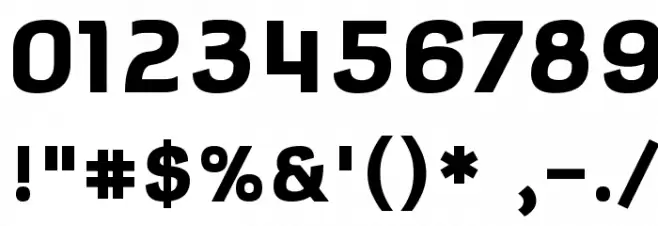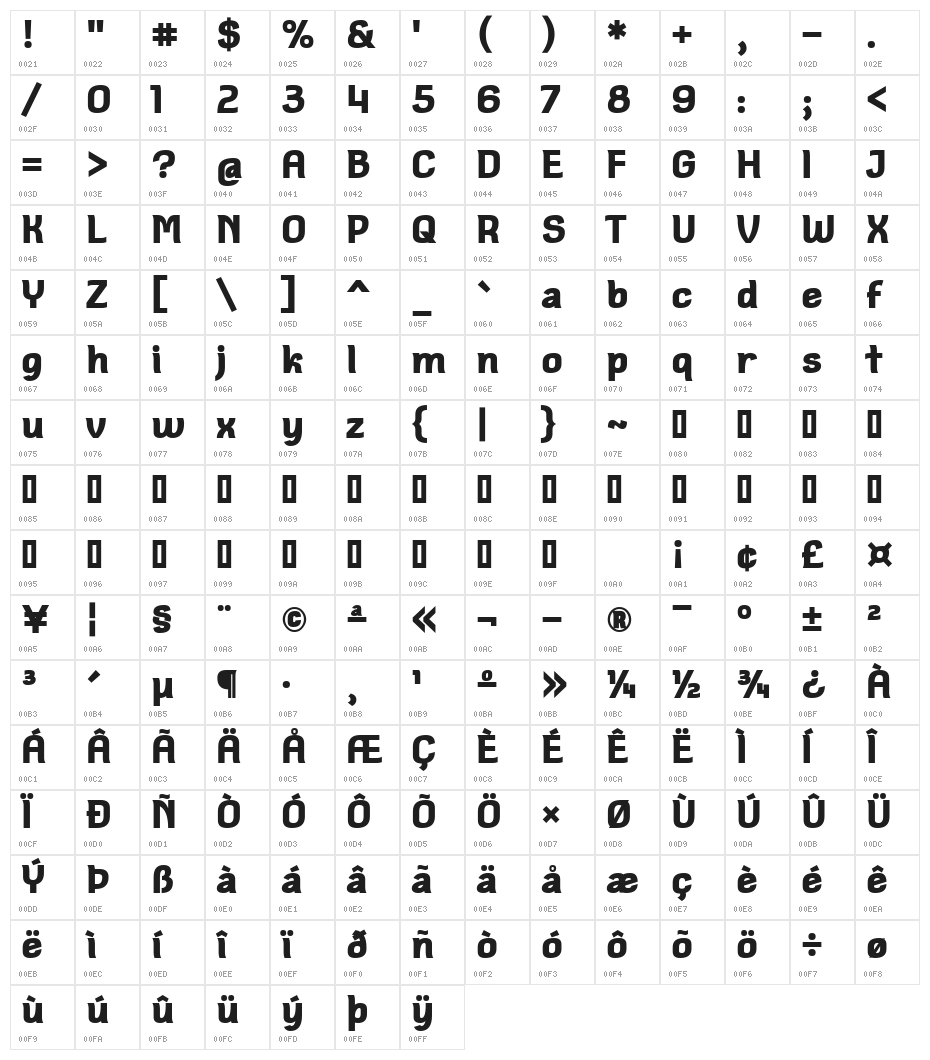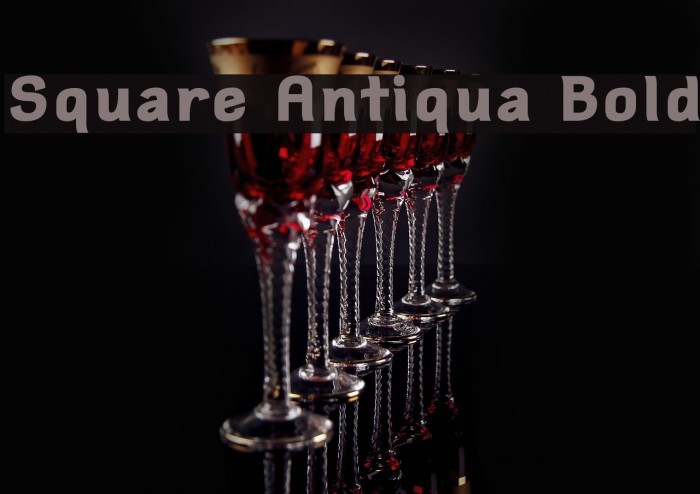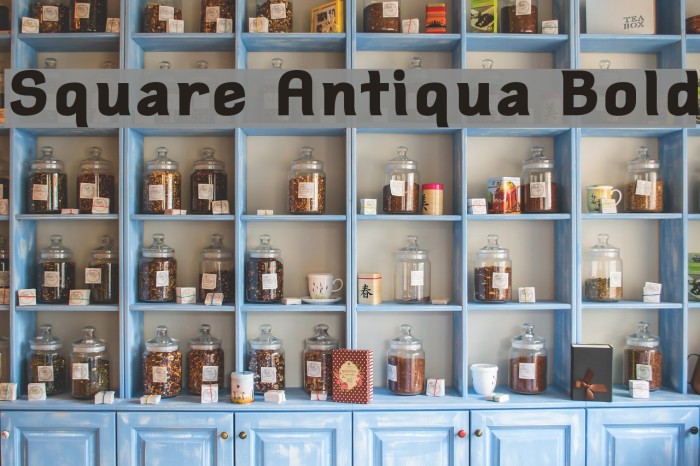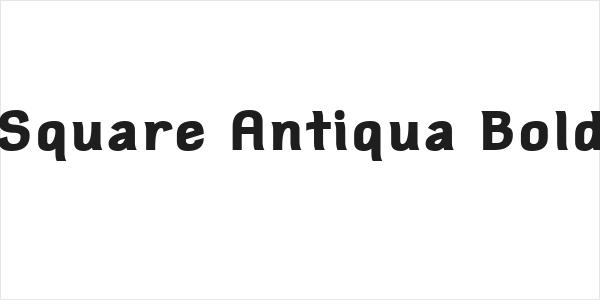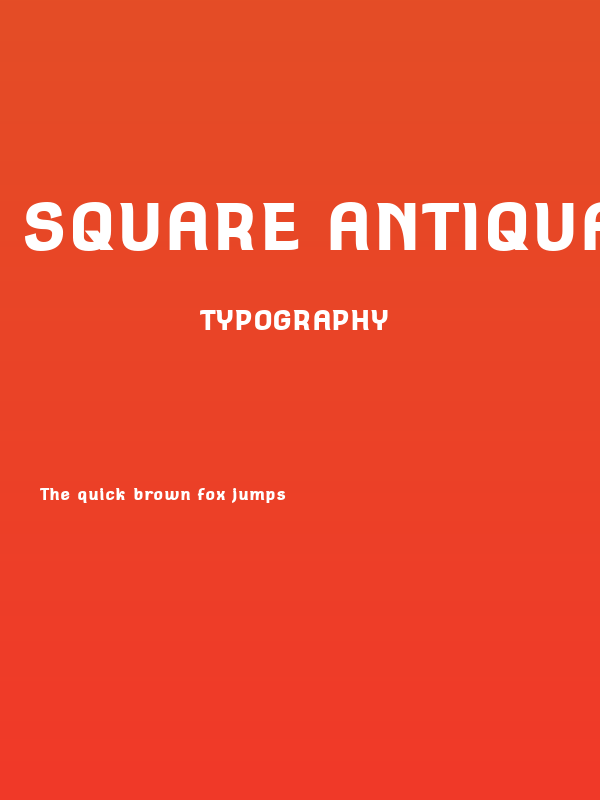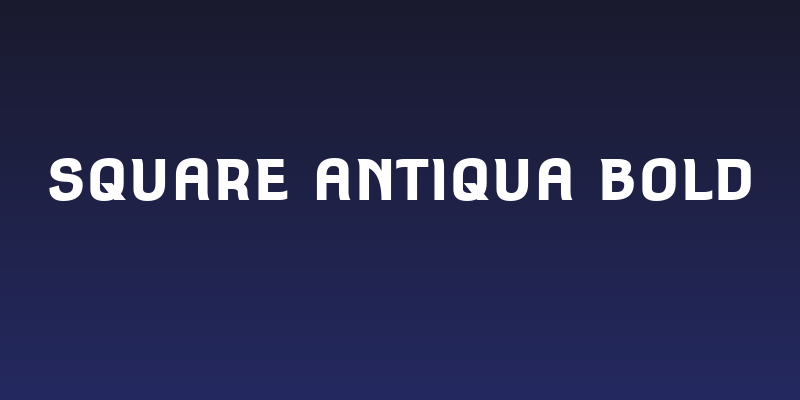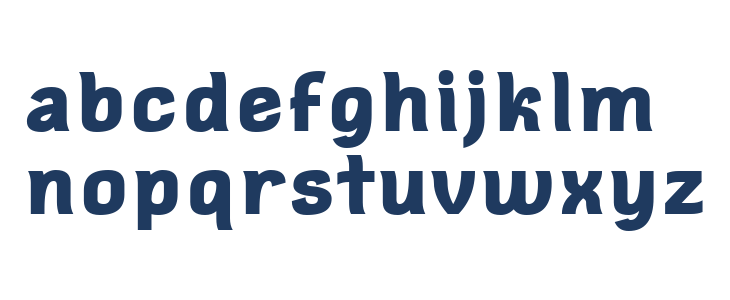
Square Antiqua Bold Font
Square Antiqua Bold Description
This font features a bold and robust design with a strong presence. The characters are well-defined with a slightly condensed appearance, giving it a compact and sturdy look. The uppercase letters are uniform in height, while the lowercase letters maintain a consistent baseline, enhancing readability. The numerals are clear and distinct, matching the boldness of the alphabetic characters. Special characters are designed with the same boldness, ensuring consistency across all symbols. The overall style is modern with a hint of vintage charm, making it versatile for various design applications.